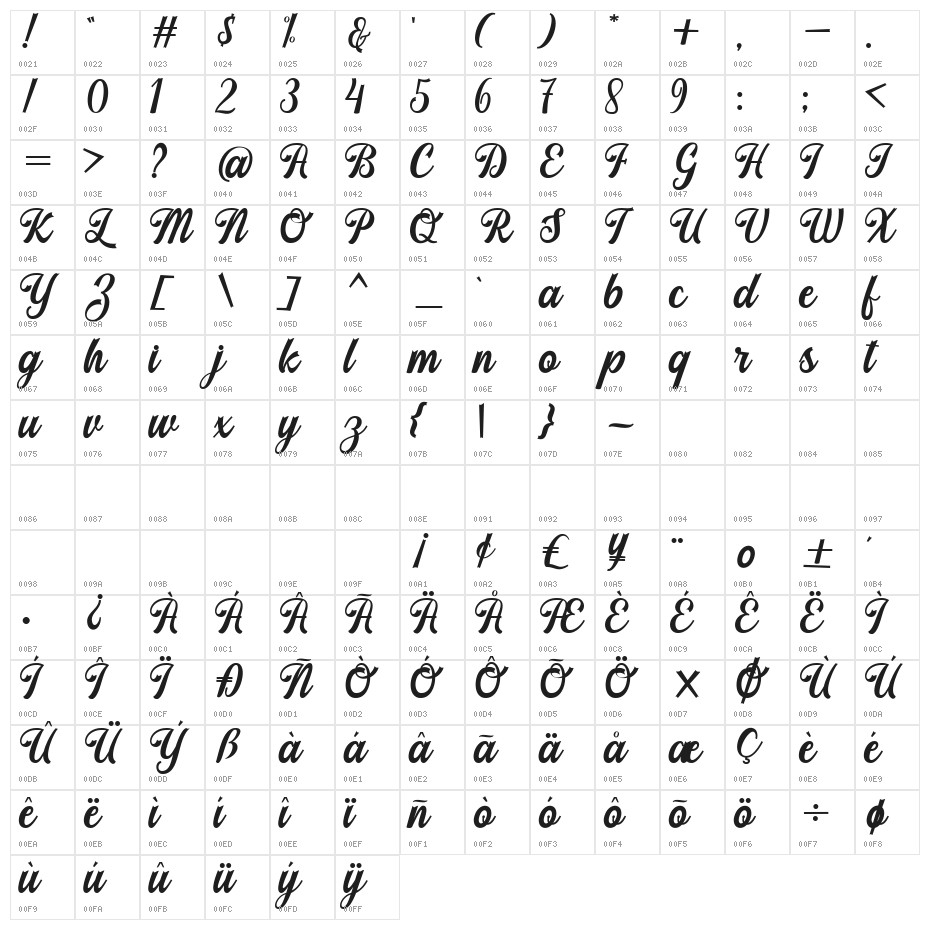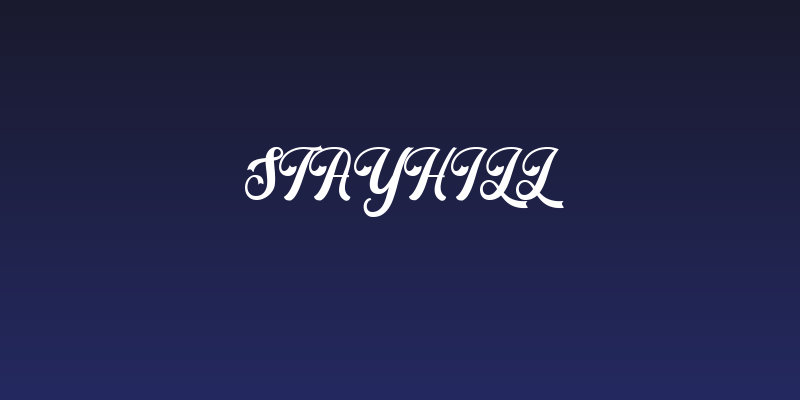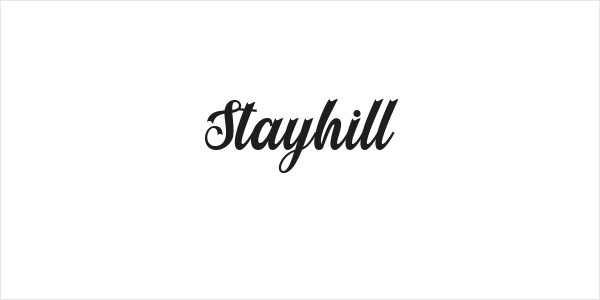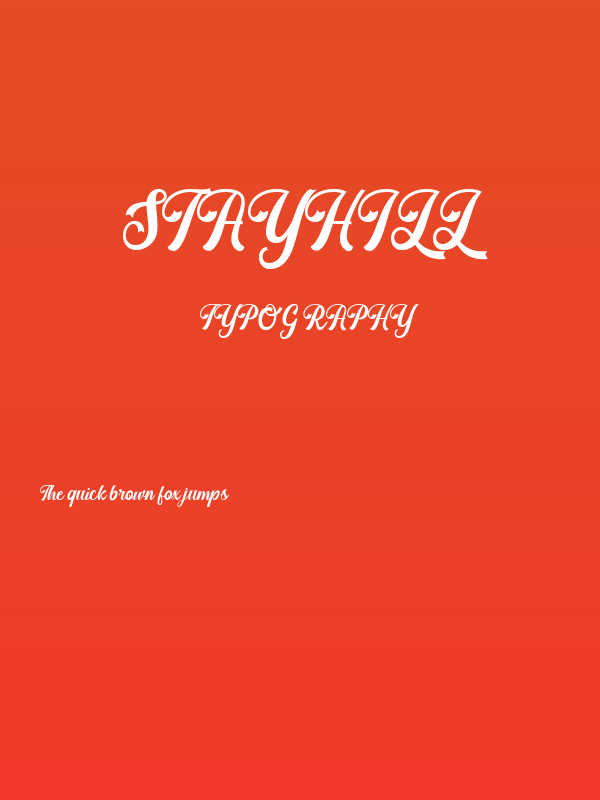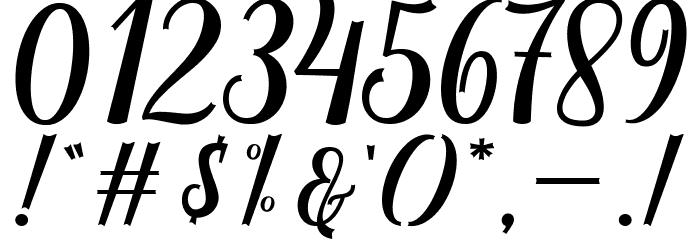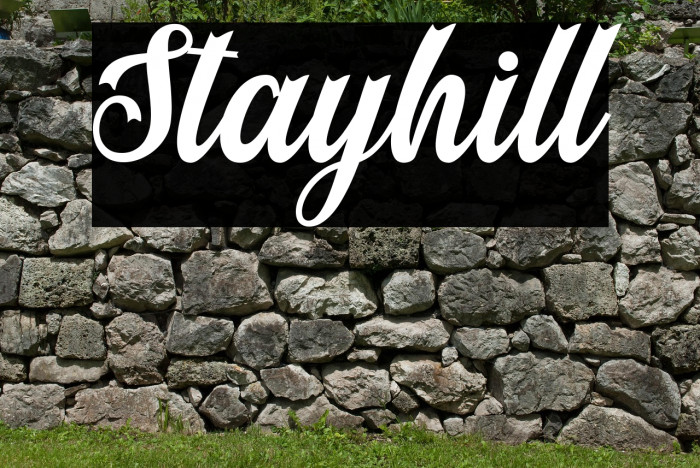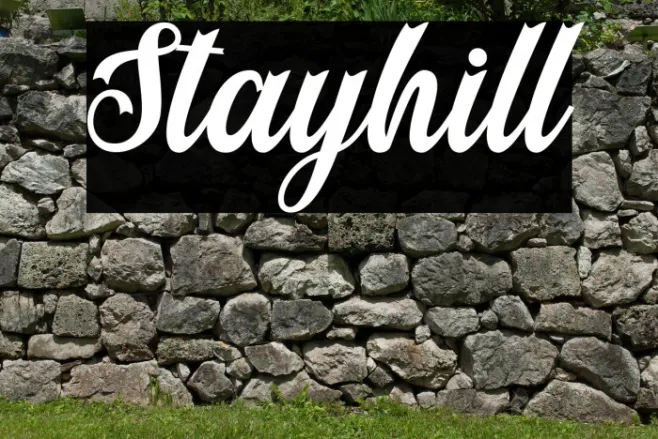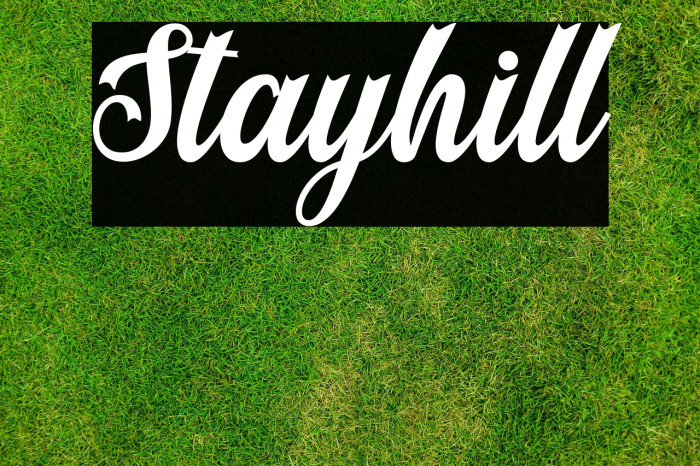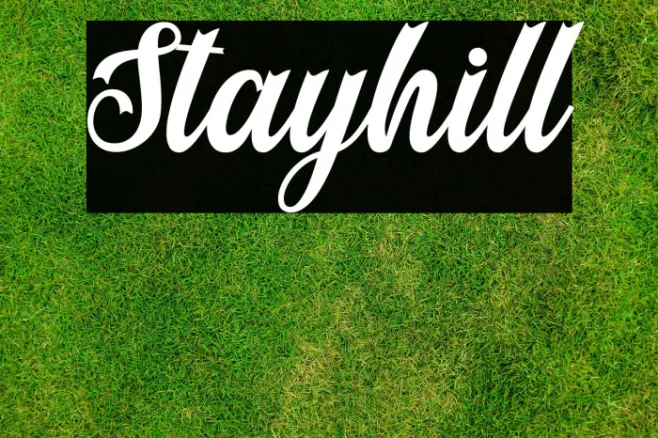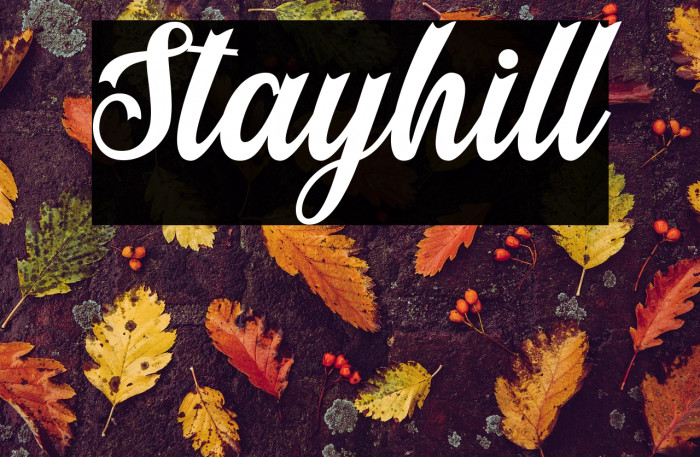
Stayhill Font
Stayhill Description
This font exudes elegance and sophistication with its flowing script style. The characters are intricately designed with smooth curves and a consistent slant, giving it a dynamic and graceful appearance. The uppercase letters are bold and prominent, while the lowercase letters maintain a harmonious balance with their slightly smaller size. The numerals are stylishly integrated, maintaining the overall aesthetic of the font. Special characters are thoughtfully crafted to complement the letters, ensuring a cohesive look across all text. This font is ideal for projects that require a touch of class and refinement.
| Proposed Projects | Ideal for wedding invitations, elegant branding, luxury product packaging, and high-end editorial design. |